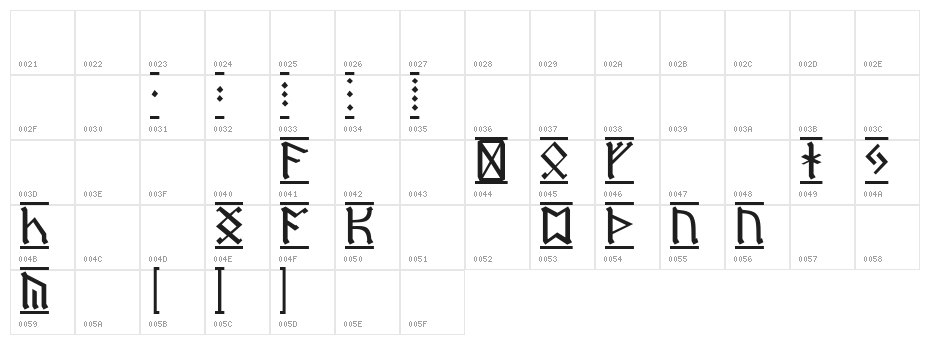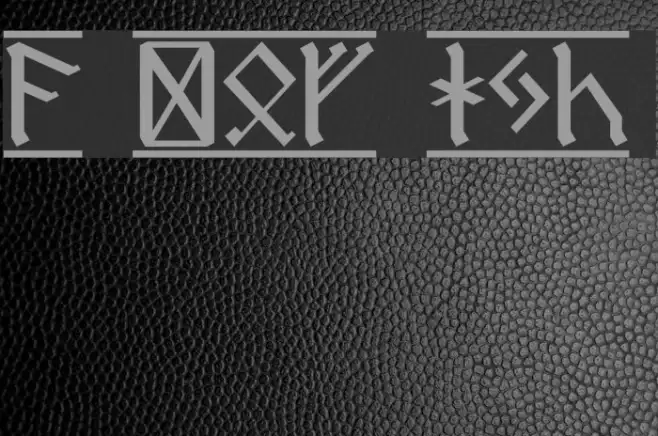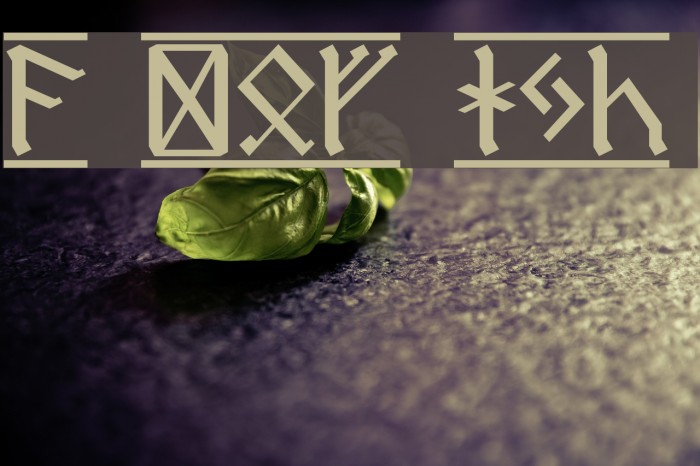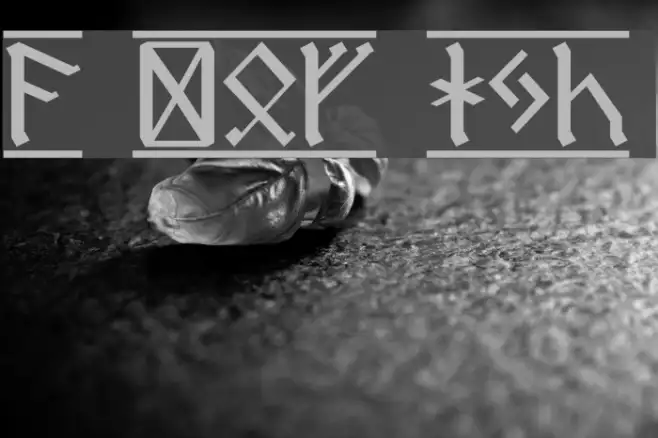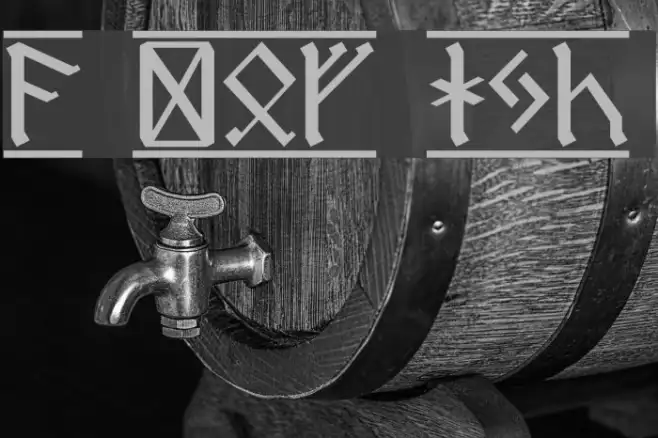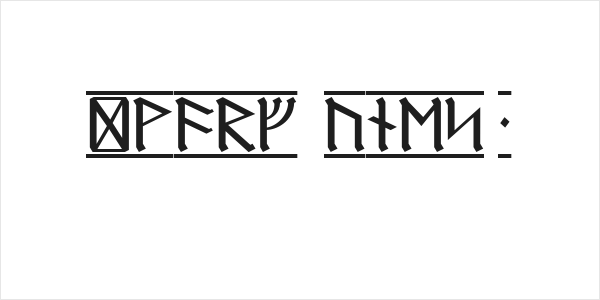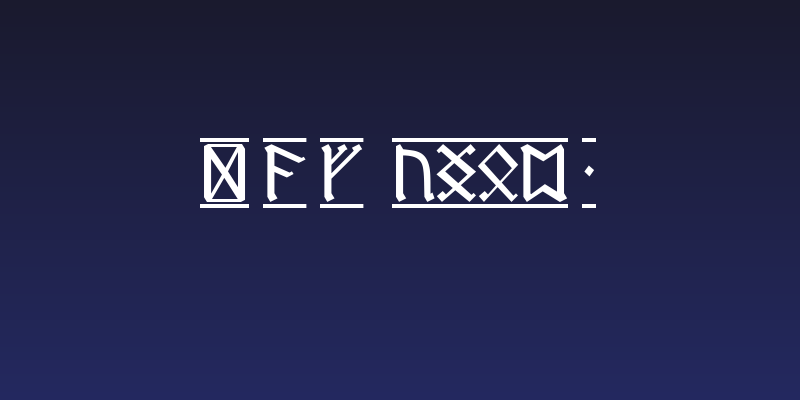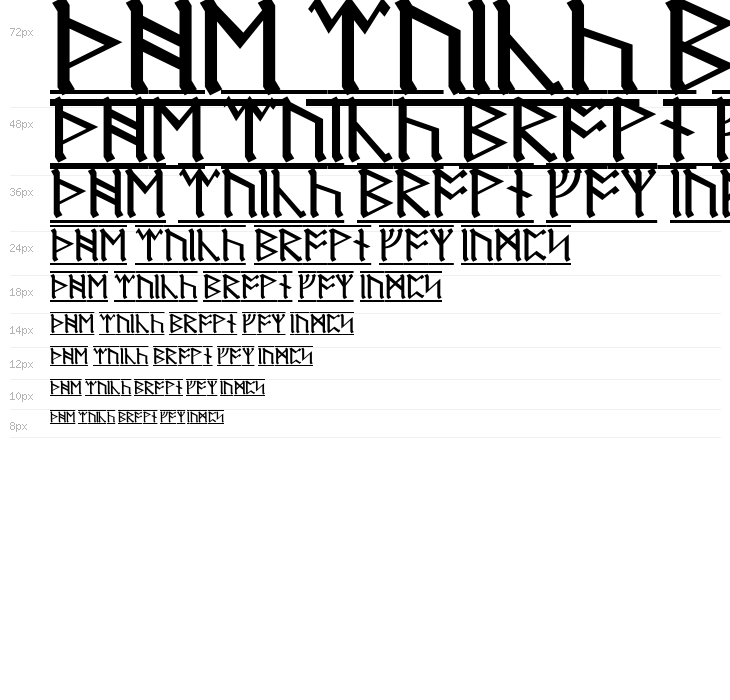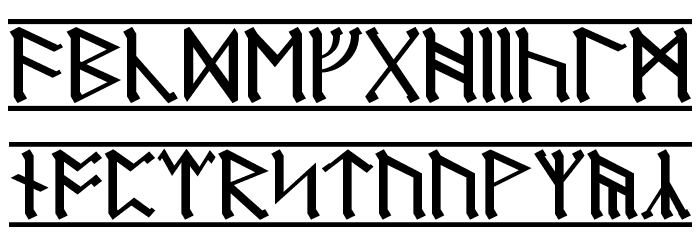
Dwarf Runes 1 Font
Dwarf Runes 1 Description
This font is inspired by ancient runic alphabets, characterized by its angular and geometric shapes. The characters are bold and have a distinct, sharp-edged appearance, reminiscent of inscriptions carved into stone or metal. Each letter is crafted with a sense of historical authenticity, capturing the essence of a mystical and ancient script. The font's design is both decorative and functional, making it suitable for projects that require a touch of fantasy or historical depth. The spacing between characters is relatively tight, enhancing the compact and cohesive look of the text. This font is ideal for creating a sense of mystery and antiquity in design projects.